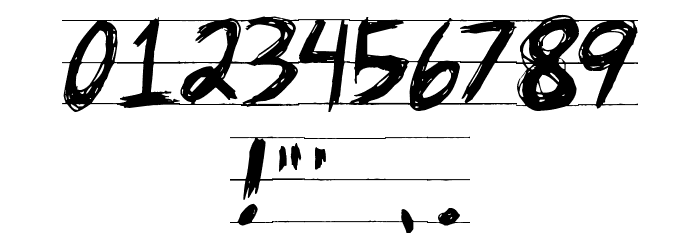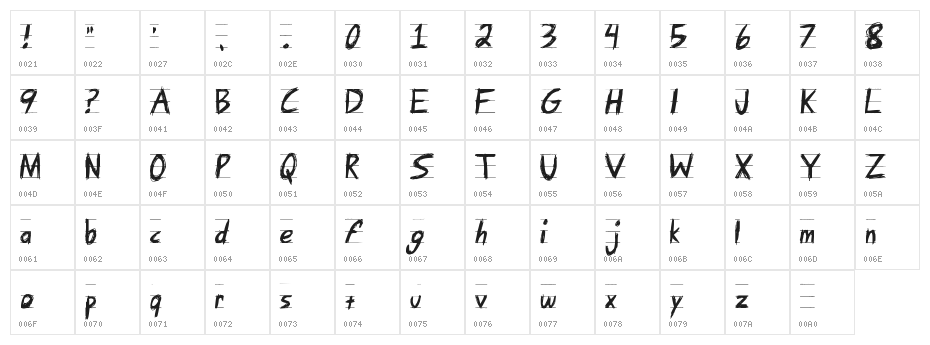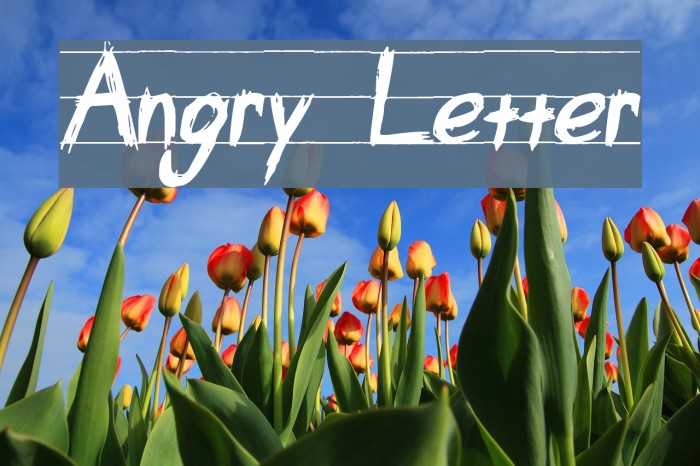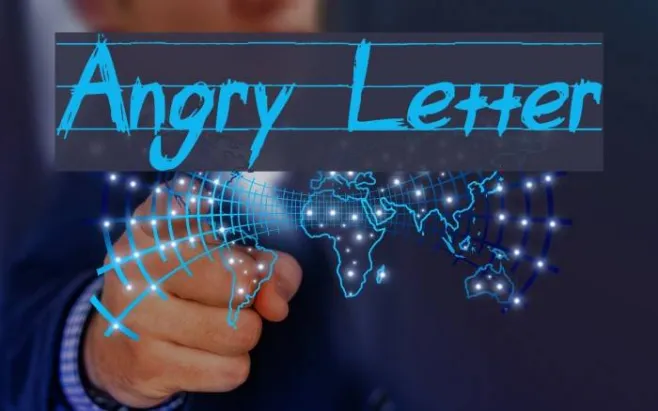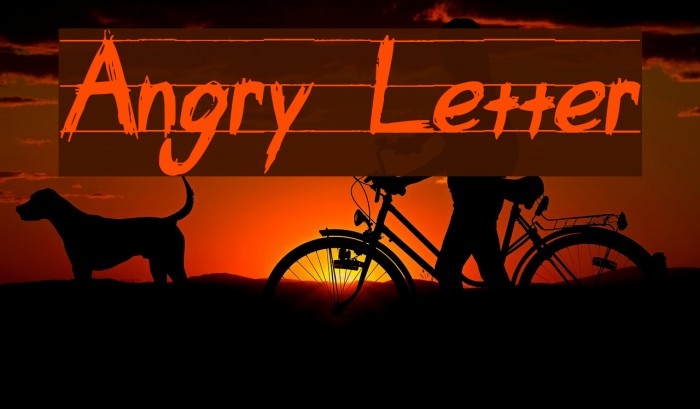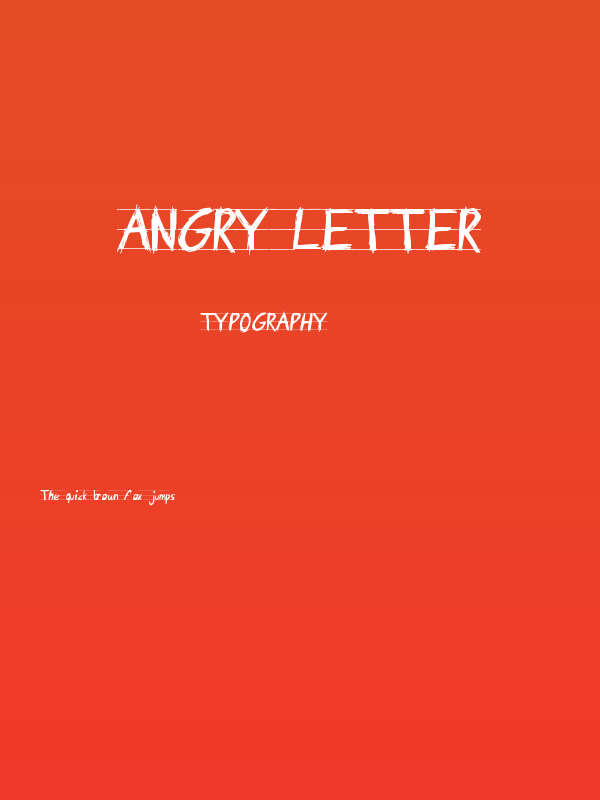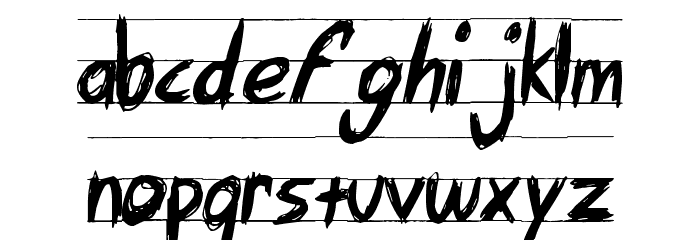
Angry Letter Font
Angry Letter Description
This font exudes a raw, expressive energy with its jagged and uneven strokes, reminiscent of hand-drawn graffiti or a hastily written note. The letters are bold and dynamic, with a sense of urgency and movement. Each character is uniquely crafted, giving the font a personal and rebellious feel. The uppercase and lowercase letters maintain a consistent style, while the numbers and special characters add to the chaotic yet artistic aesthetic. The overall appearance is striking and attention-grabbing, making it ideal for projects that require a bold statement.
| Overall Style | Modern, Edgy |
| Proposed Projects | Ideal for album covers, posters, street art designs, and edgy branding projects. |